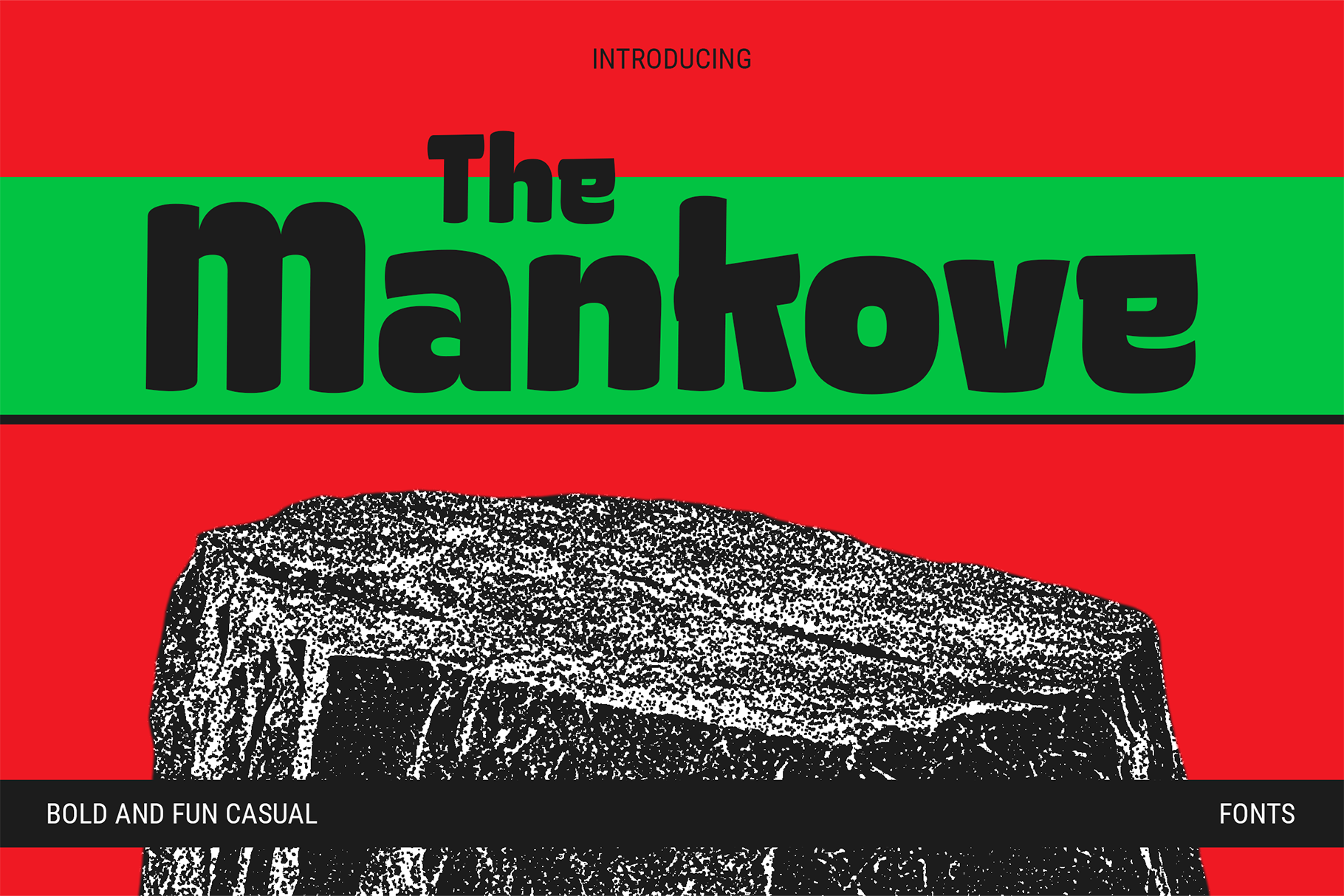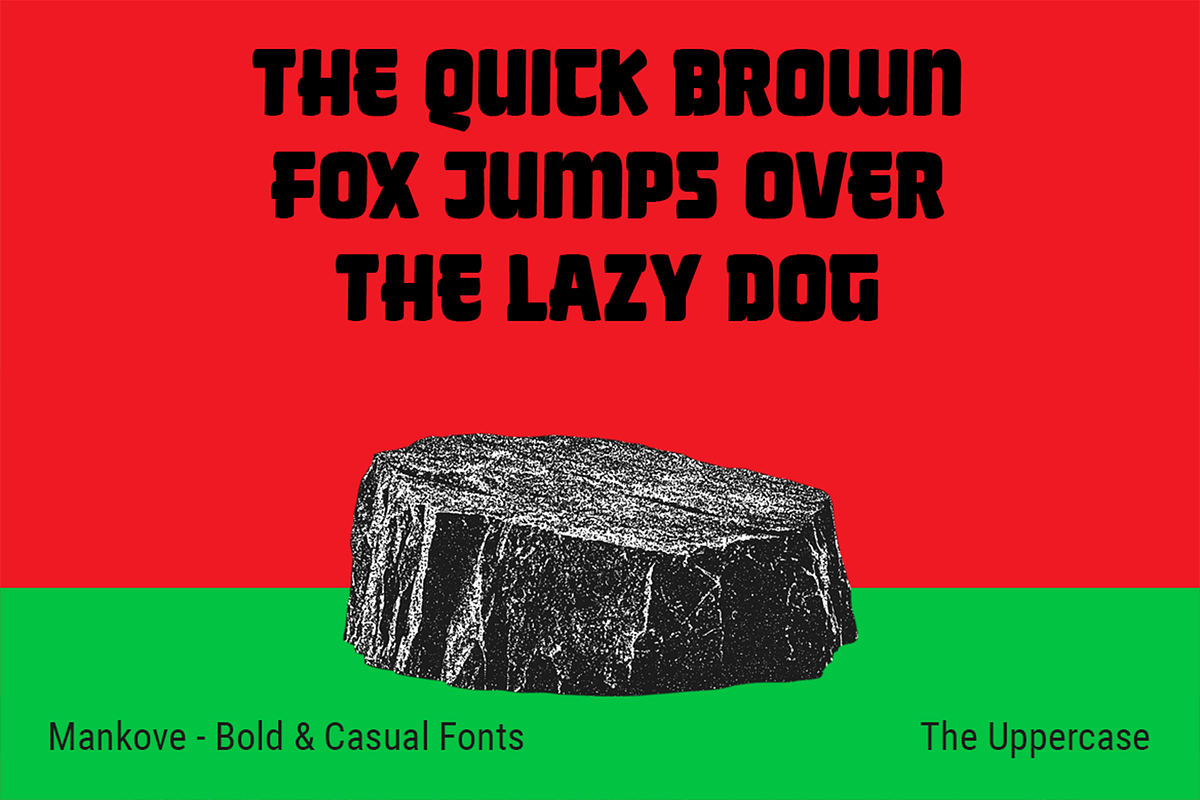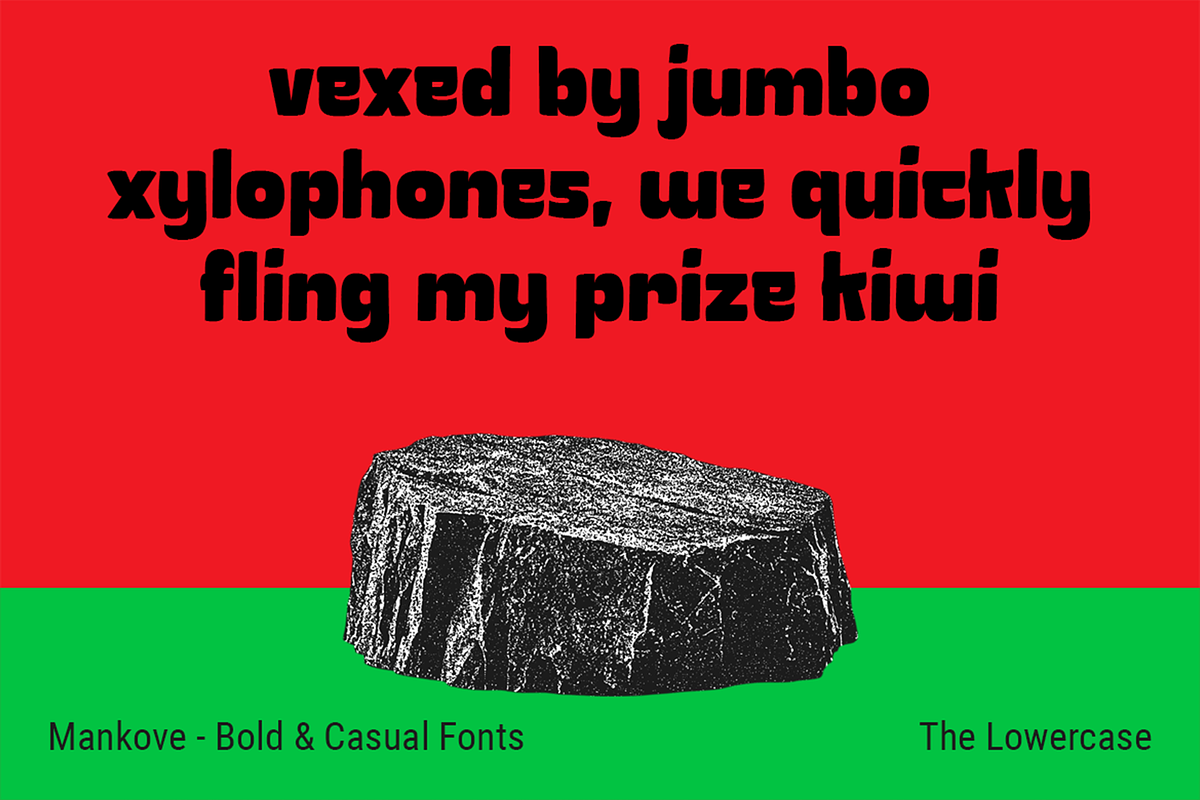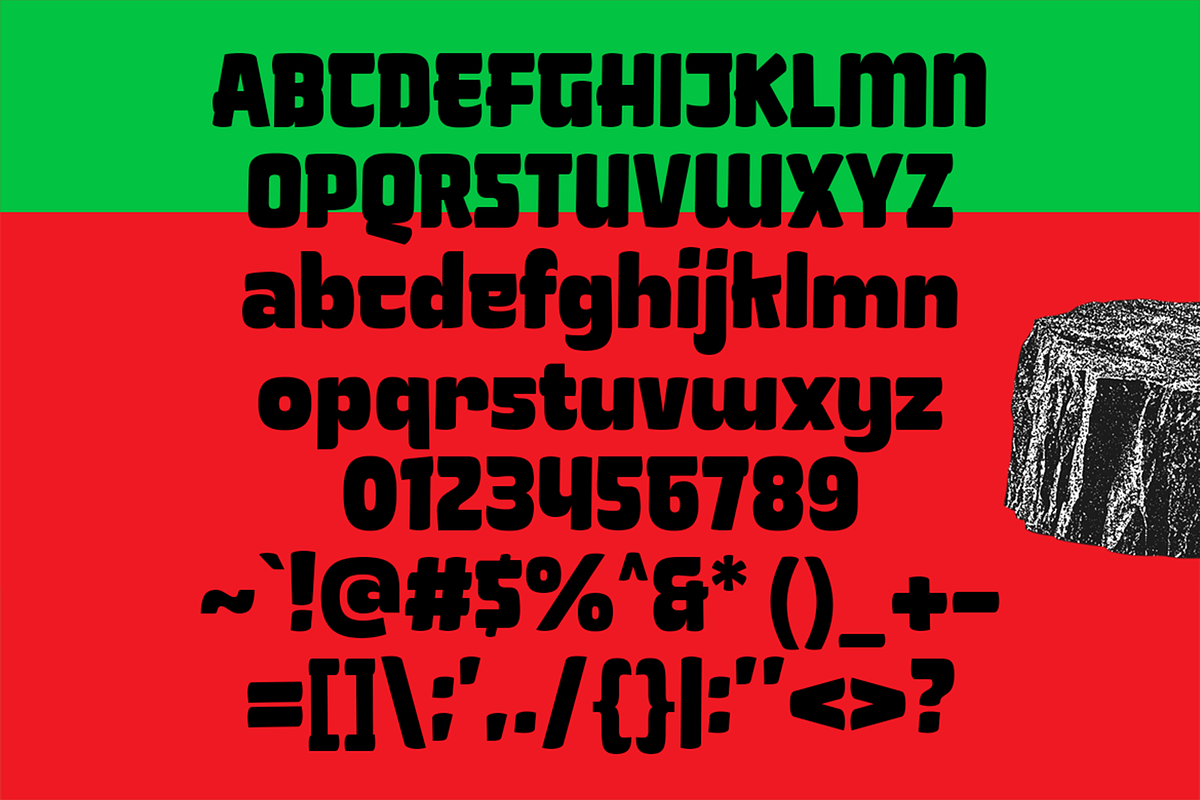
Mankove - Bold Casual Fonts
Mankove, A Bold Font from the Stone Age of Cool.
Cracked from the core of primitive power and shaped by the raw spirit of ancient rocks — Mankove brings a bold, fun, and unapologetically chunky personality to your design arsenal. It’s rough around the edges, but that’s the charm. Just like the first carvings on stone walls, this font speaks loudly, boldly, and casually.
Whether you're crafting:
- A retro-caveman poster? Nailed it.
- A quirky brand that rocks? Perfect match.
- A logo that needs to stand tall and primal? Say no more.
- Album covers, T-shirts, or packaging for something wild and earthy? Mankove’s got the grit.